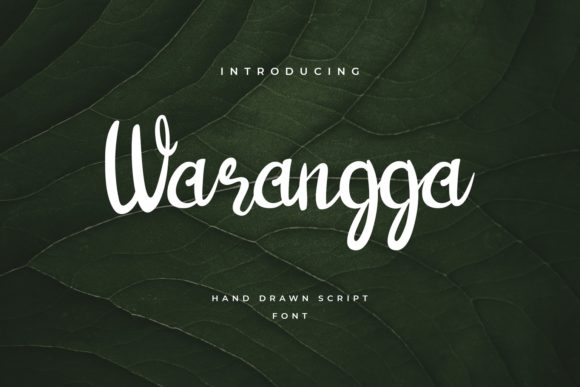
Get swept away by the captivating charm of Warangga, a delicate and elegant handwritten font crafted with intricate precision. Its letters, adorned with distinct and well-rounded curves, form a masterpiece that will transport your designs to new heights of beauty and sophistication. Allow yourself to be captivated by its incredibly versatile style, a perfect companion for unleashing your creativity and leaving an everlasting impression on your audience.
Warangga possesses an inherent grace that effortlessly blends the classic charm of script with a modern twist, making it an ideal choice for a wide array of projects. Whether you're a seasoned designer or just starting, Warangga will captivate your imagination and elevate your designs with its versatility. Dive into endless possibilities and craft breathtaking logos, alluring branding, and captivating social media posts that will leave your audience spellbound.
With Warangga, the boundaries of creativity dissolve, allowing you to effortlessly create designs that resonate with your target audience. Its carefully crafted characters will add a touch of sophistication to your invitations, wedding stationery, and heartfelt quotes. Embrace the power of Warangga and witness the transformation of ordinary words into extraordinary expressions of art that touch the soul.
Immerse yourself in the world of Warangga and unlock a treasure trove of artistic possibilities. Its elegant strokes will add a touch of magic to your projects, whether it's a captivating book cover that draws readers in or an eye-catching poster that commands attention. Let Warangga ignite your imagination and watch as your designs come to life with its enchanting allure.